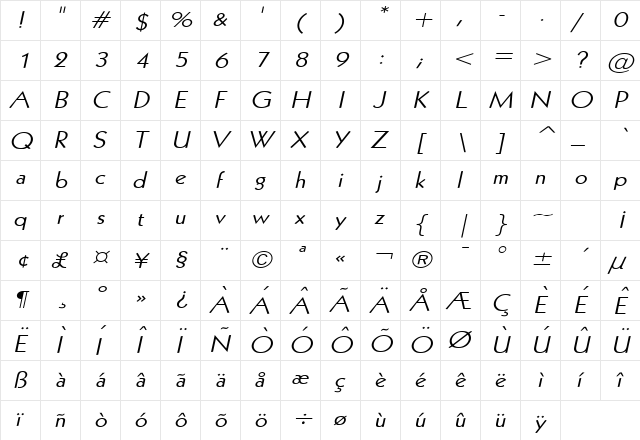
Geo 112 Wide Italic
Design Context for Geo 112 Wide Typeface
Geo 112 Wide is a composed and adaptable typeface that performs quietly and consistently across a wide range of design contexts. The slanted form adds forward momentum and visual energy.